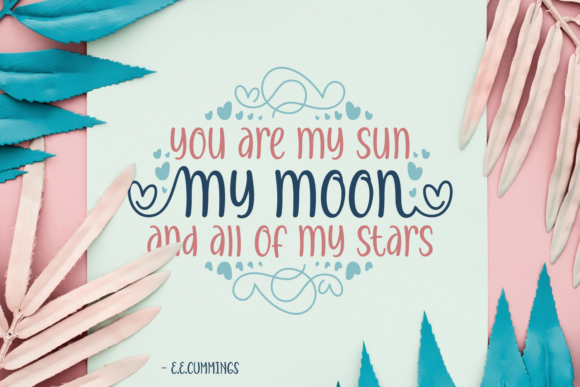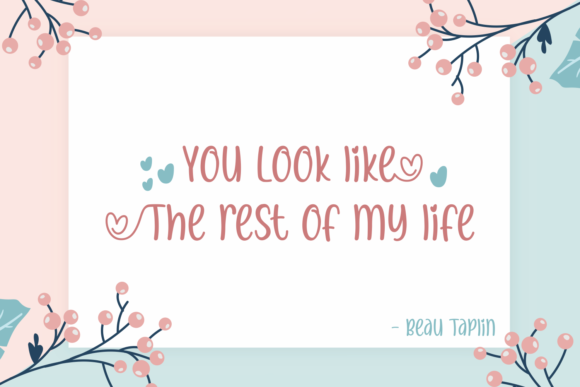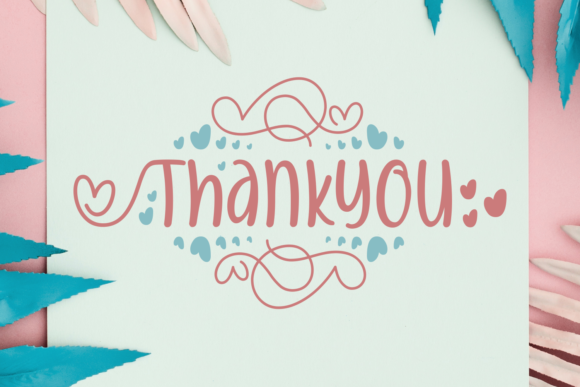
Introducing Chilla Font: The Perfect Handwritten Script for Your Design Needs
Are you tired of using the same old fonts for your designs? Look no further than Chilla Font, a gorgeous and playful script font that’s perfect for adding a touch of personality to your work. With its modern and classy look, Chilla Font is ideal for logos, branding, invitations, social media posts, and any other design that needs a special handwritten touch.
What Makes Chilla Font So Special?
Chilla Font is a unique and eye-catching font that’s sure to make your designs stand out from the crowd. Its incredibly playful vibe is perfect for designers and crafters who want to add a touch of whimsy and fun to their work. At the same time, its modern and classy look ensures that your designs will still look professional and sophisticated.
One of the best things about Chilla Font is its versatility. It’s perfect for a wide range of design applications, including:
- Logos: Chilla Font is a great choice for logos, especially for businesses that want to convey a friendly and approachable vibe.
- Branding: Use Chilla Font to create a consistent brand identity that’s both modern and elegant.
- Invitations: Add a touch of personality to your invitations with Chilla Font, perfect for weddings, birthday parties, and other special events.
- Social Media Posts: Make your social media posts stand out with Chilla Font, perfect for creating eye-catching graphics and quotes.
Why Choose Chilla Font?
So why should you choose Chilla Font for your design needs? Here are just a few reasons:
- Unique and Eye-Catching: Chilla Font is a one-of-a-kind font that’s sure to grab attention.
- Playful and Whimsical: Add a touch of fun and personality to your designs with Chilla Font.
- Modern and Classy: Chilla Font is perfect for designers who want to create modern and sophisticated designs.
- Easy to Read: Despite its playful vibe, Chilla Font is still easy to read, making it perfect for body text and headlines.
Tips for Using Chilla Font
Here are a few tips for getting the most out of Chilla Font:
- Use it as a Headline Font: Chilla Font is perfect for headlines and titles, where its playful vibe can really shine.
- Pair it with a Serif Font: For body text, pair Chilla Font with a serif font to create a nice contrast.
- Experiment with Colors: Chilla Font looks great in a variety of colors, so don’t be afraid to experiment and find the perfect hue for your design.
In conclusion, Chilla Font is a gorgeous and playful script font that’s perfect for designers and crafters who want to add a touch of personality to their work. With its modern and classy look, Chilla Font is ideal for a wide range of design applications, from logos and branding to invitations and social media posts. So why not give Chilla Font a try and see how it can elevate your designs?
Whether you’re a seasoned designer or just starting out, Chilla Font is a great addition to your font library. Its unique and eye-catching design is sure to make your designs stand out, and its playful vibe is perfect for adding a touch of whimsy and fun to your work. So go ahead, get creative with Chilla Font, and see what amazing designs you can come up with!